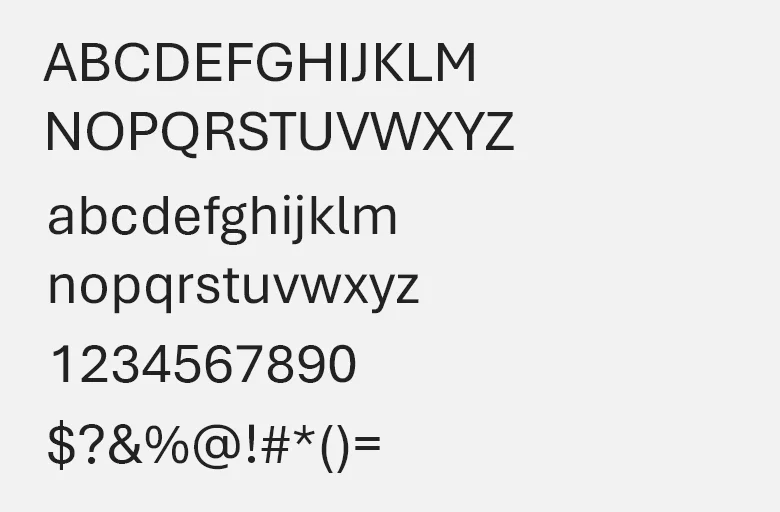
Aptos Font is Microsoft’s fresh take on a modern default typeface. It replaces Calibri as the new system font across Microsoft 365, setting a clean, confident tone for everything from emails to presentations. The design feels neutral but not cold sharp but not stiff making it a practical pick for all kinds of digital reading.
- Designer: Steve Matteson
- Released: 2023 (originally called Bierstadt)
- Style: Sans-serif
Originally introduced as part of a font trial lineup, Aptos won out for its crisp letterforms and wide readability. Microsoft renamed it to reflect a California town known for clarity and natural beauty something the font aims to embody in its own way.
Font Features
- Balanced width and spacing for screen reading
- Geometric forms with subtle humanist touches
- Strong vertical strokes and clean curves
- Great legibility at both small and large sizes
- Available in multiple weights and styles
Pairing Tips
Aptos works well with serif fonts like Georgia or Times for a classic-modern balance. It also pairs nicely with rounded sans-serifs in lighter weights to soften the tone while keeping things professional.